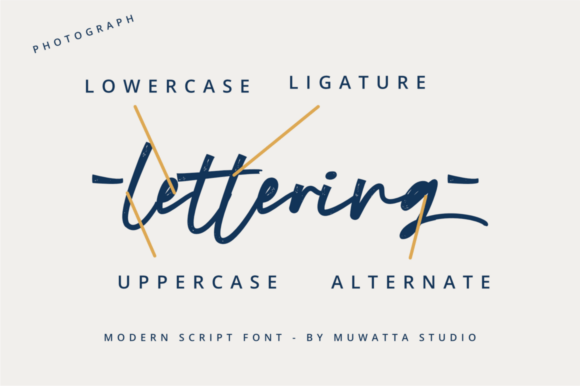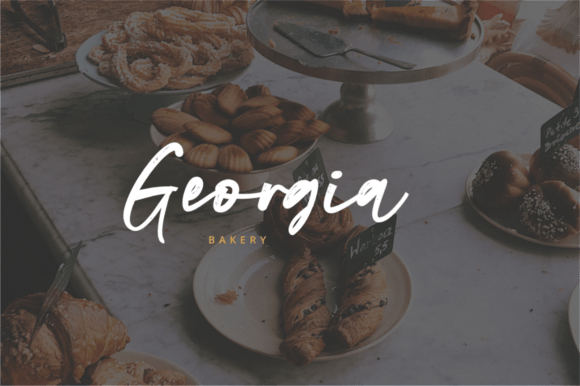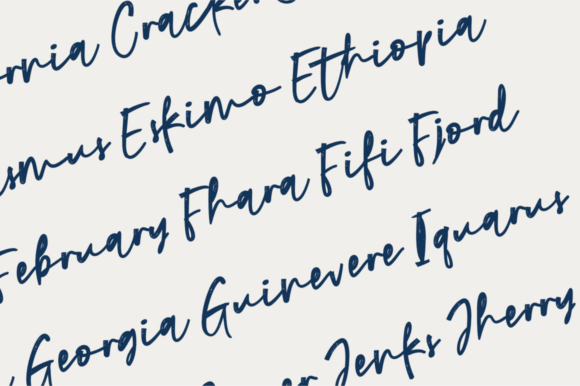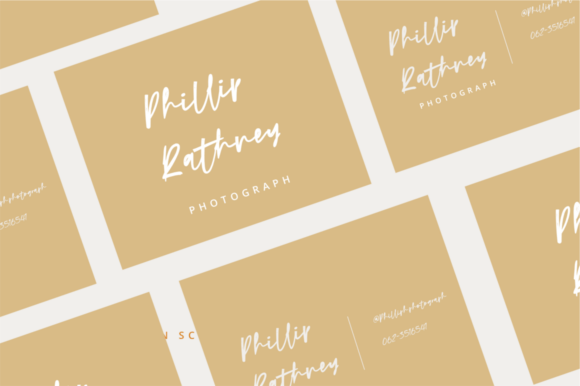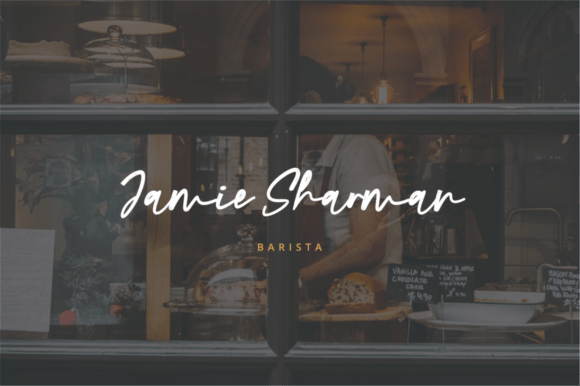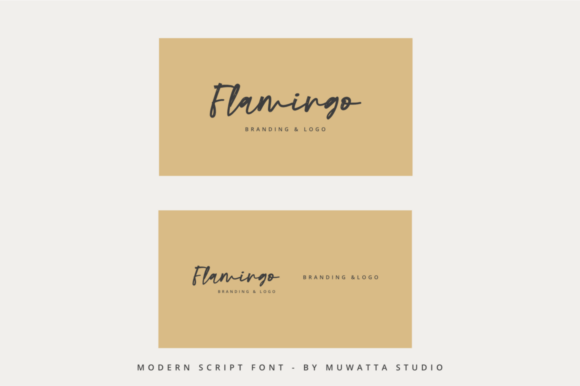
Introduction to Rathney Font
Rathney – Handwritten Font with a Personal Touch Rathney is a handwritten font that exudes a warm, personal, and characterful feel.
With its smooth yet spontaneous strokes, Rathney is designed to mimic the beauty of natural handwriting—perfect for a variety of design needs that prioritize a friendly and authentic impression .